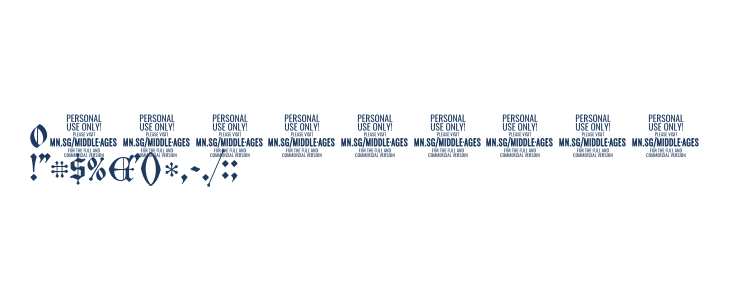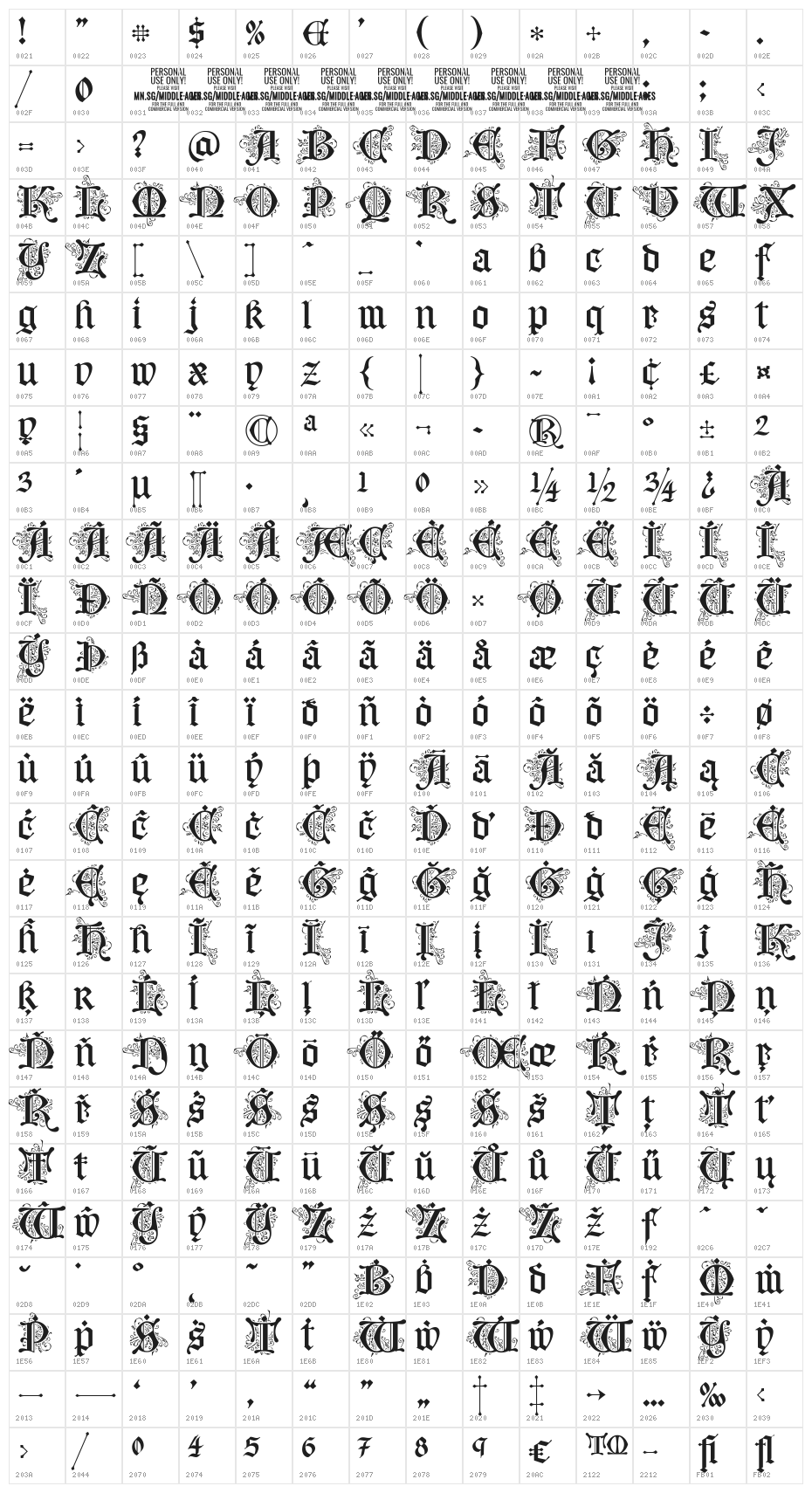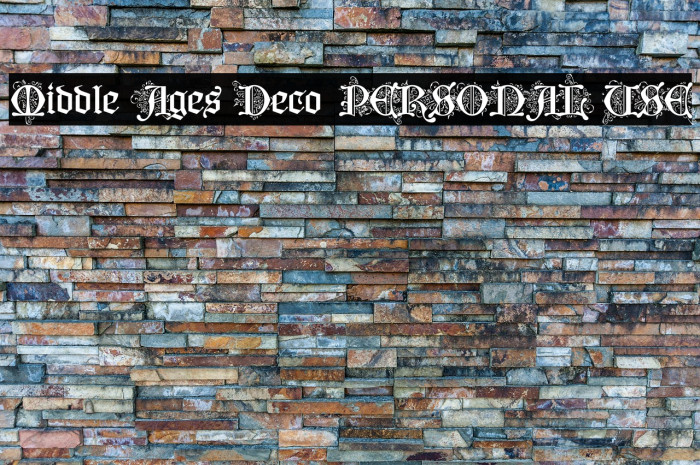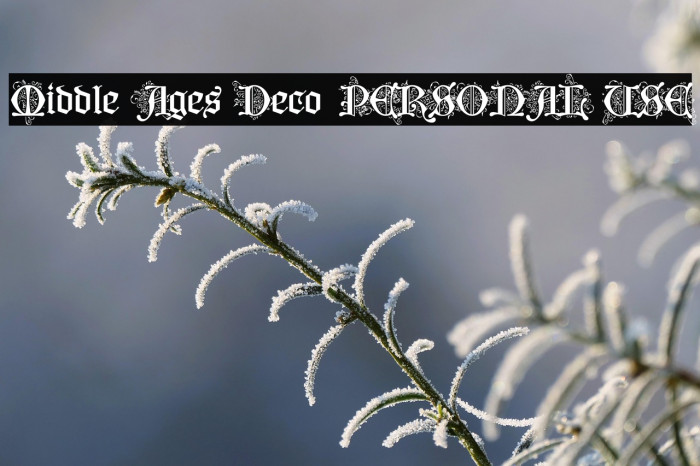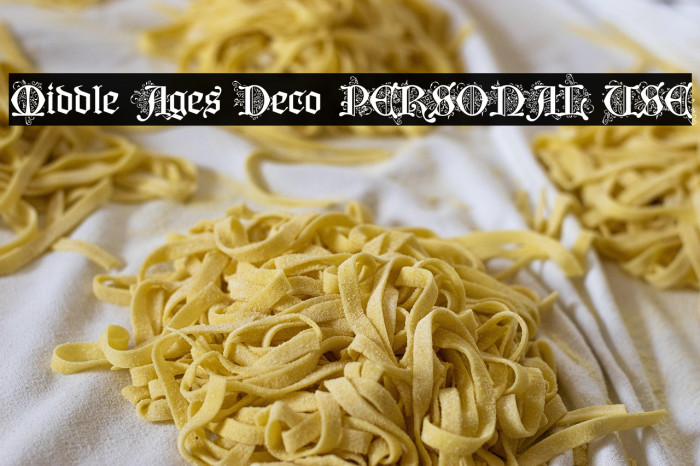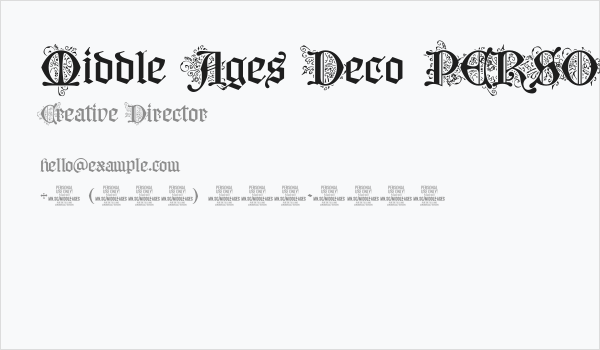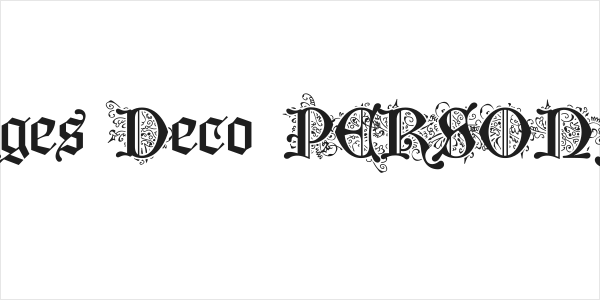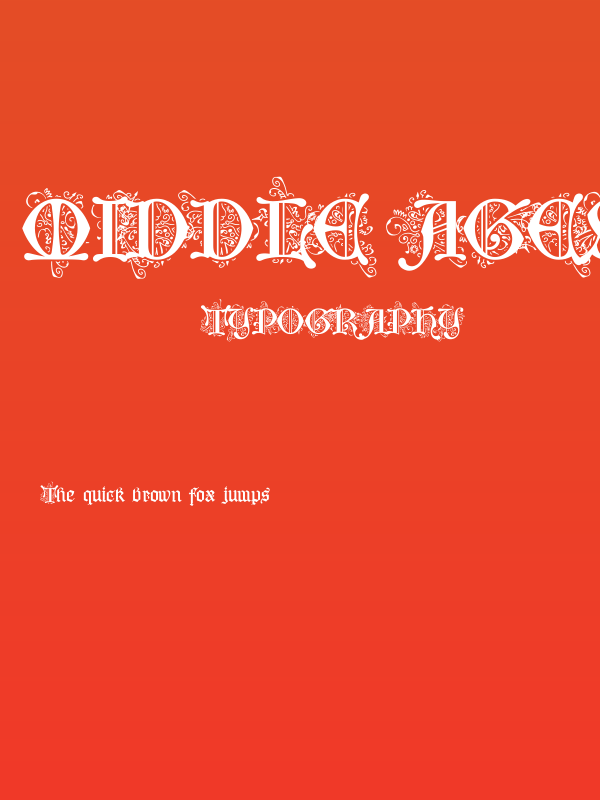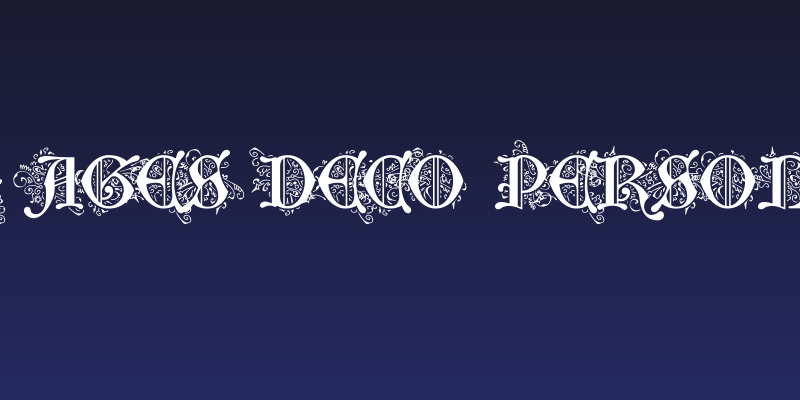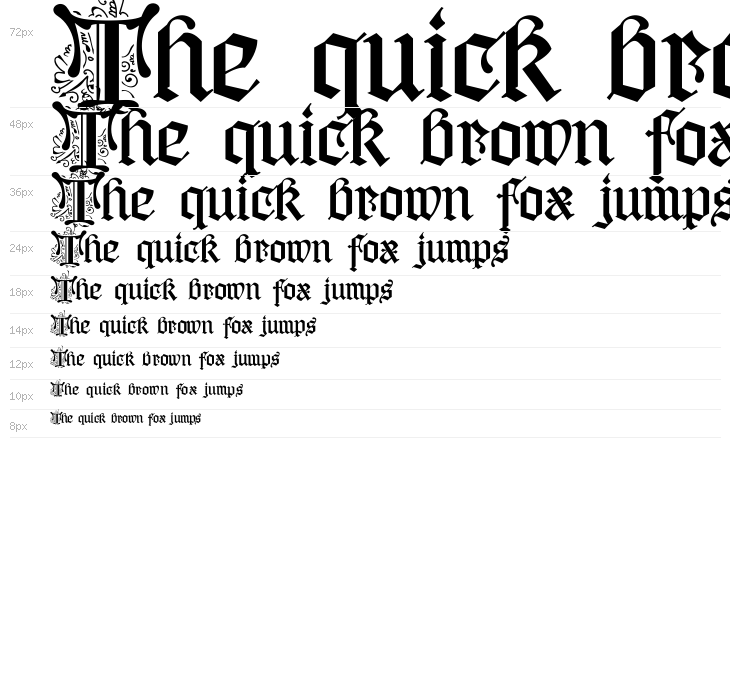
Middle Ages Deco PERSONAL USE Font
Middle Ages Deco PERSONAL USE Description
This font embodies a medieval aesthetic with intricate, decorative elements reminiscent of the Middle Ages. The uppercase letters feature elaborate flourishes and embellishments, giving them a regal and ornate appearance. The lowercase letters maintain a consistent style, with sharp angles and a bold presence. The numerals and special characters are designed to complement the overall theme, adding a touch of historical elegance. This font is perfect for projects that require a touch of vintage charm and historical depth.
| Proposed Projects | Ideal for historical-themed events, medieval fantasy book covers, themed invitations, and decorative signage. |